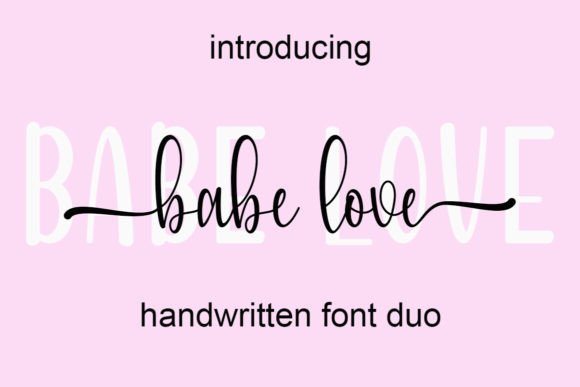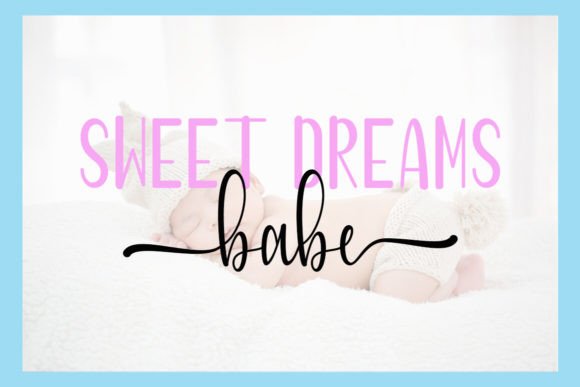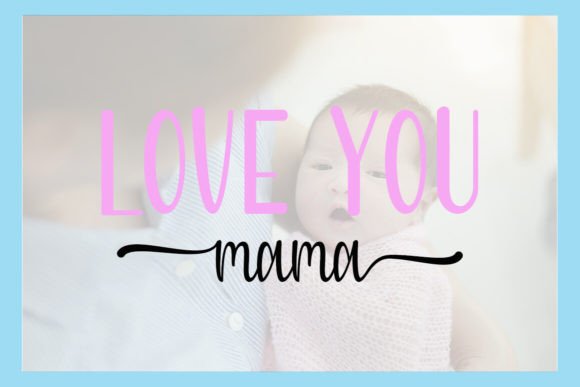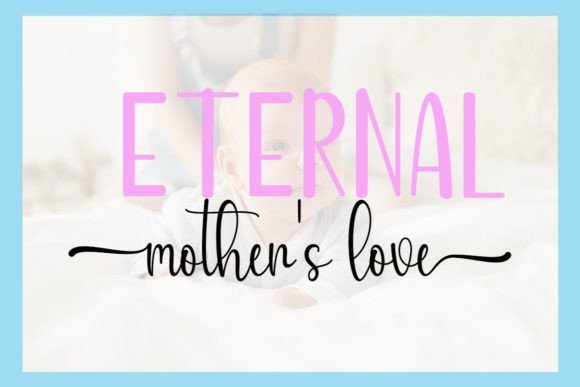
Babe Love Font
About the Babe Love Font
Explore the possibilities with Babe Love Font, a font that offers both beauty and functionality. Babe Love is a lovely handwritten font duo featuring well-rounded characters and a stylish vibe. Get inspired by its light and approachable style, and use it in your favorite creations. It looks beautiful on wedding invitations, greeting cards, logos, posters, labels, t-shirt designs, logos, and business cards.
Babe Love’s friendly, slightly informal style makes it ideal for branding projects targeting a youthful or feminine demographic, particularly those focused on products or services related to weddings, fashion, beauty, or handcrafted goods. It excels in headlines, short text blocks on posters and invitations, and logo design where its handwritten charm adds a personal touch. However, its legibility suffers in long paragraphs or body copy, and should be avoided for UI applications requiring clear, concise text.
Pairing Babe Love with a clean sans-serif like Lato or Open Sans provides a strong contrast and modern balance, enhancing readability while maintaining a cohesive brand aesthetic. For a more vintage feel, consider pairing it with a serif font like Playfair Display for added elegance and sophistication. Alternatively, a playful script font could complement its handwritten style, but choose one with clear letterforms to avoid visual clutter.
The font projects a lighthearted, approachable personality— perfect for brands emphasizing warmth and authenticity. Its versatility allows for a range of applications, but thoughtful pairing and mindful usage are key to maximizing its impact.
Babe Love Font Usage Examples
Babe Love Font Example